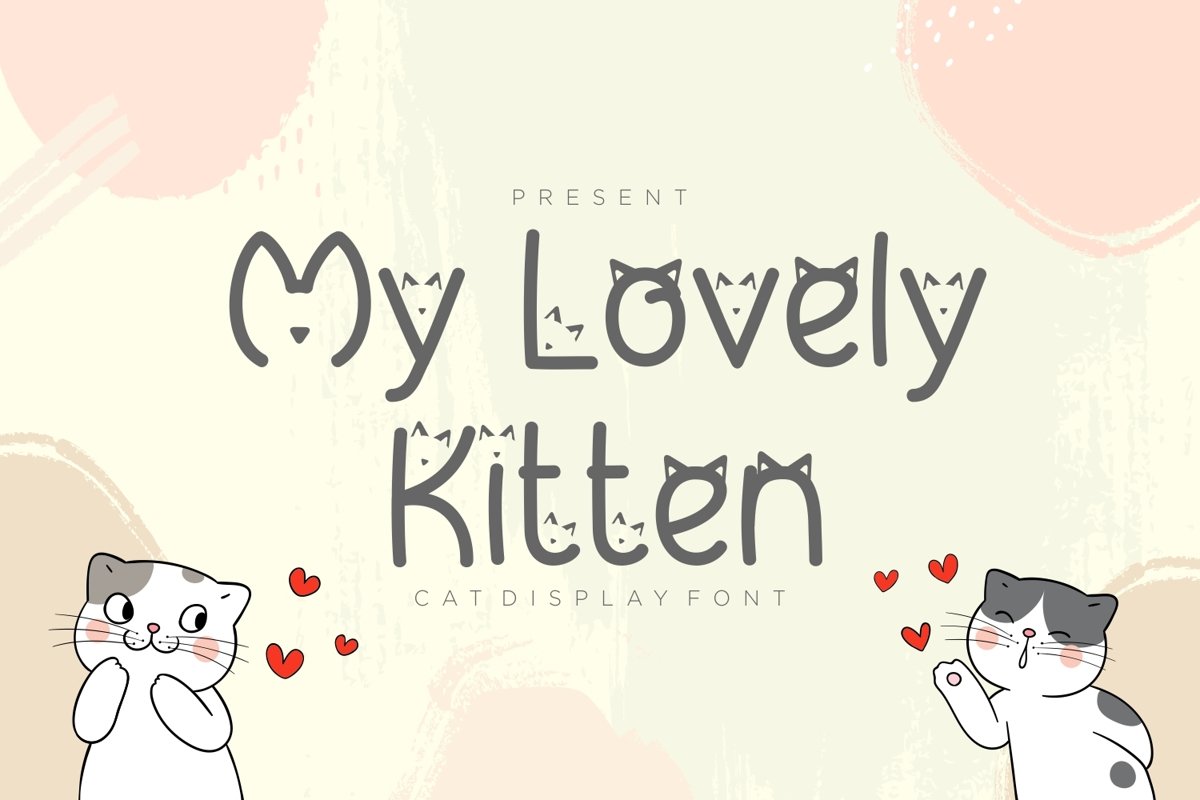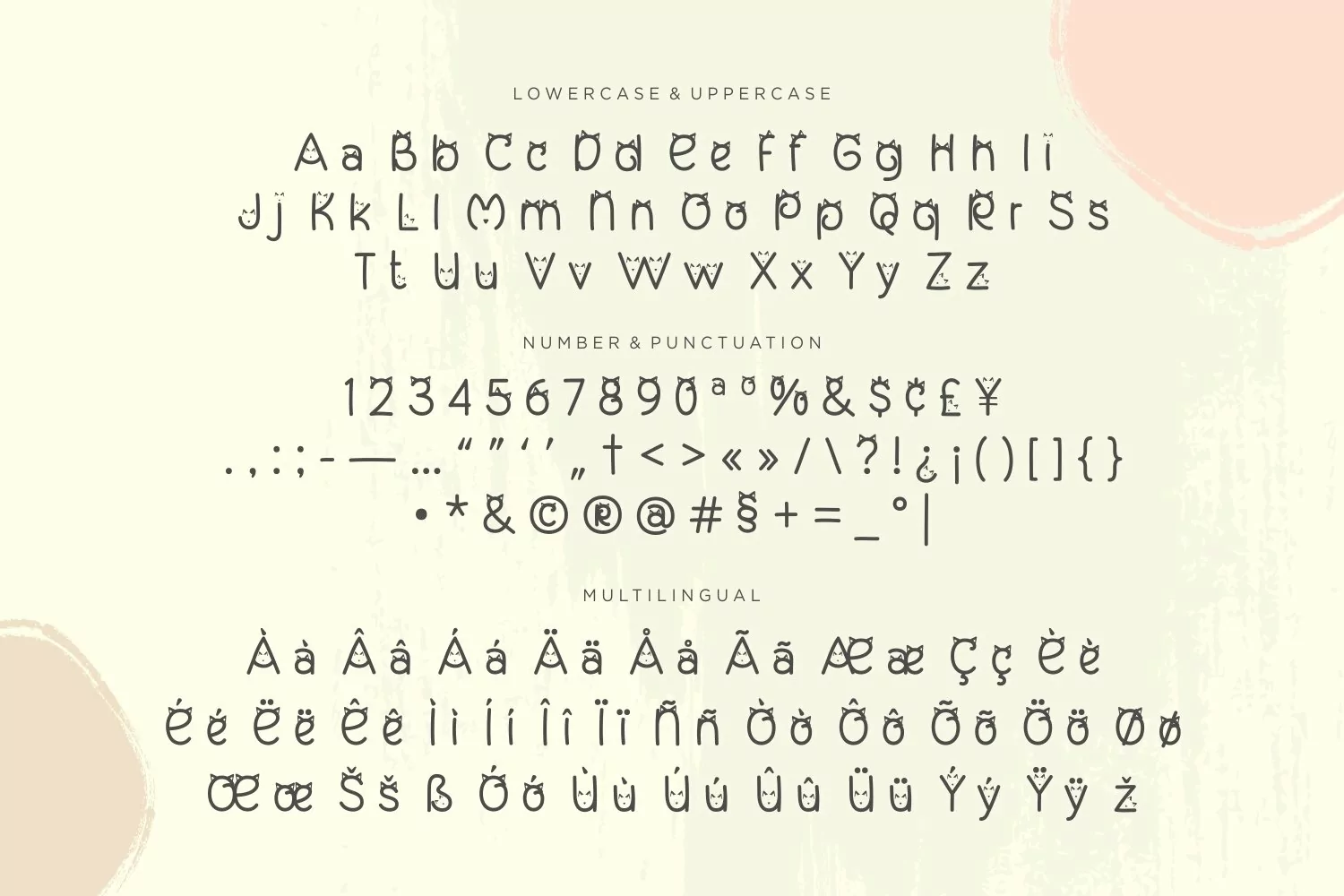
My Lovely Kitten is a cute san serif display come with cat themes. We wanted to create detail craft in all characters. It matches applies in some designs such as the logotype, brand, packaging, quotes, cute poster, kids shirt, cover book, birthday invitation and more custom design. The features uppercase, lowercase, numeral, punctuation & symbol, multilingual support, PUA encoded (fully accessible without additional design software).